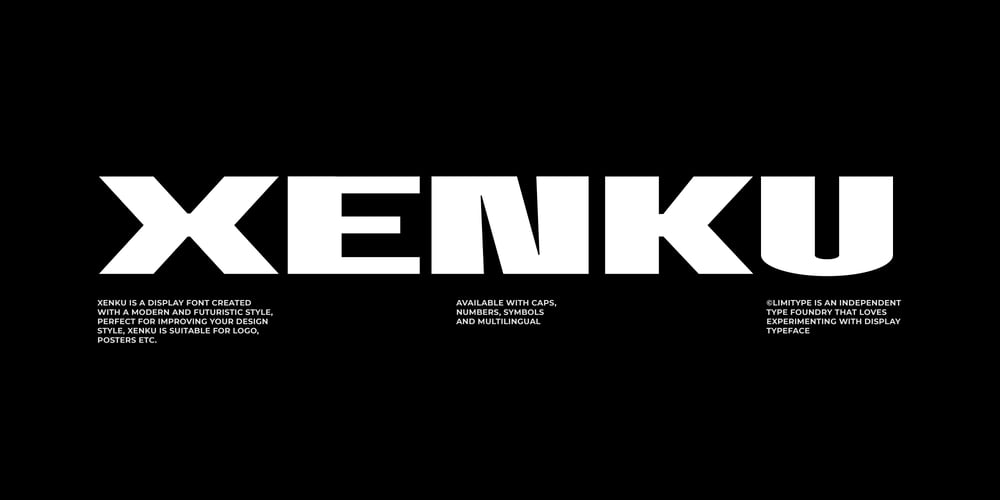
Xenku Font Family was designed by Muhammad Muammar and published by limitype. Xenku contains 2 styles and family package options. Xenku Is A Display Font With A Modern Sans Serif Style, Made With A More Dynamic And Flexible Impression, Making This Font Look More Futurustic.Xenku Comes With:- All Caps Fonts- Number- Symbol- Multi Language- And Italic Version